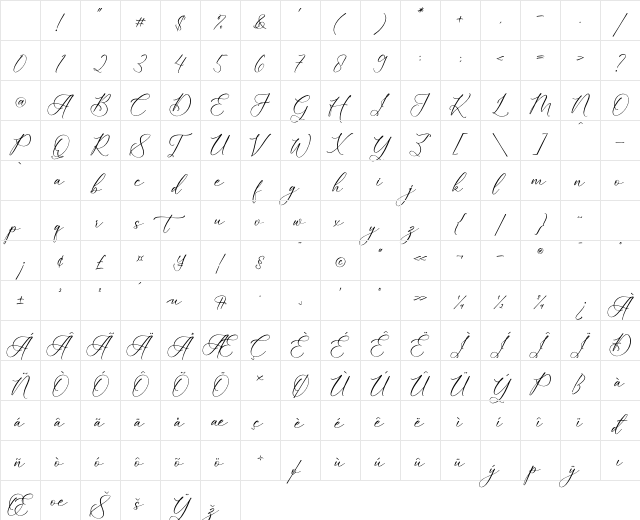
Complete Alnetsia Montenela Regular glyph index. Displaying only characters natively supported by Alnetsia Montenela Regular font.
Alnetsia Montenela is a composed and adaptable typeface that performs quietly and consistently across a wide range of design contexts.